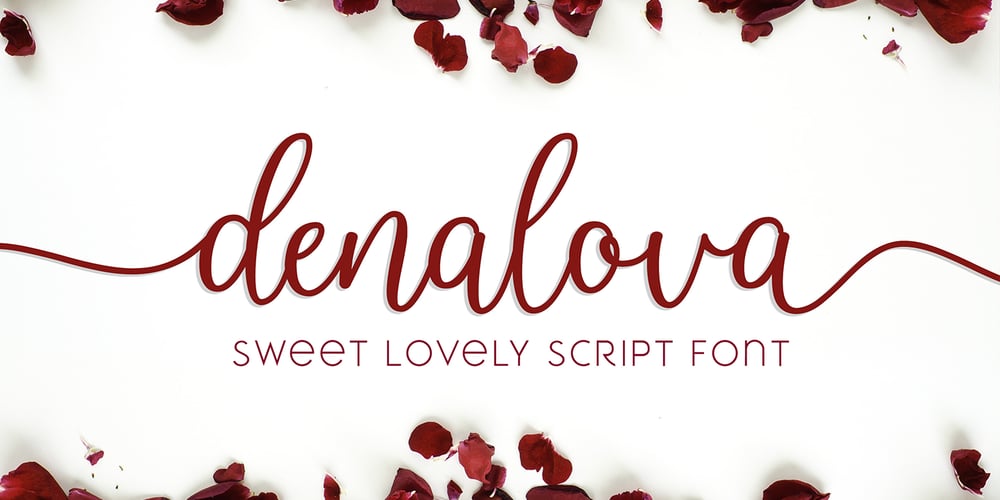
Denalova Font Family was designed by Abdul Malik Wisnu and published by Almarkha Type. Denalova contains 2 styles and family package options. Denalova is a modern calligraphy font with a handwritten, sophisticated flow. It is perfect for branding, wedding invites and cards. Denalova includes full set of uppercase and lowercase letters, multi-lingual symbols, numerals, punctuation and ligatures. It also includes: short lowercase, beginning and ending swashes, lowercase ending swashes, long lowercase beginning and ending swashes. The font has smooth texture, so would be perfect for all types of printing techniques, as well as embroidery, laser cut, gold foil, and more.